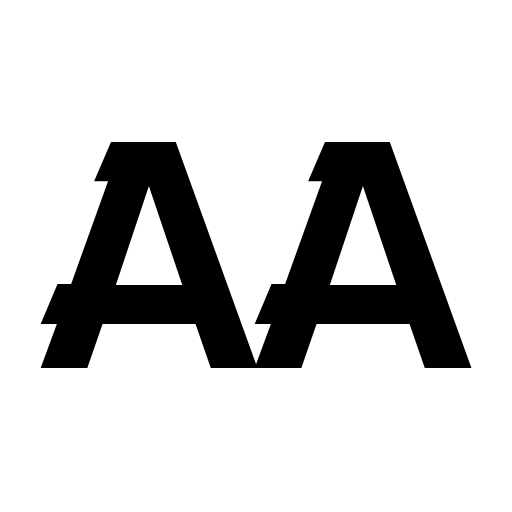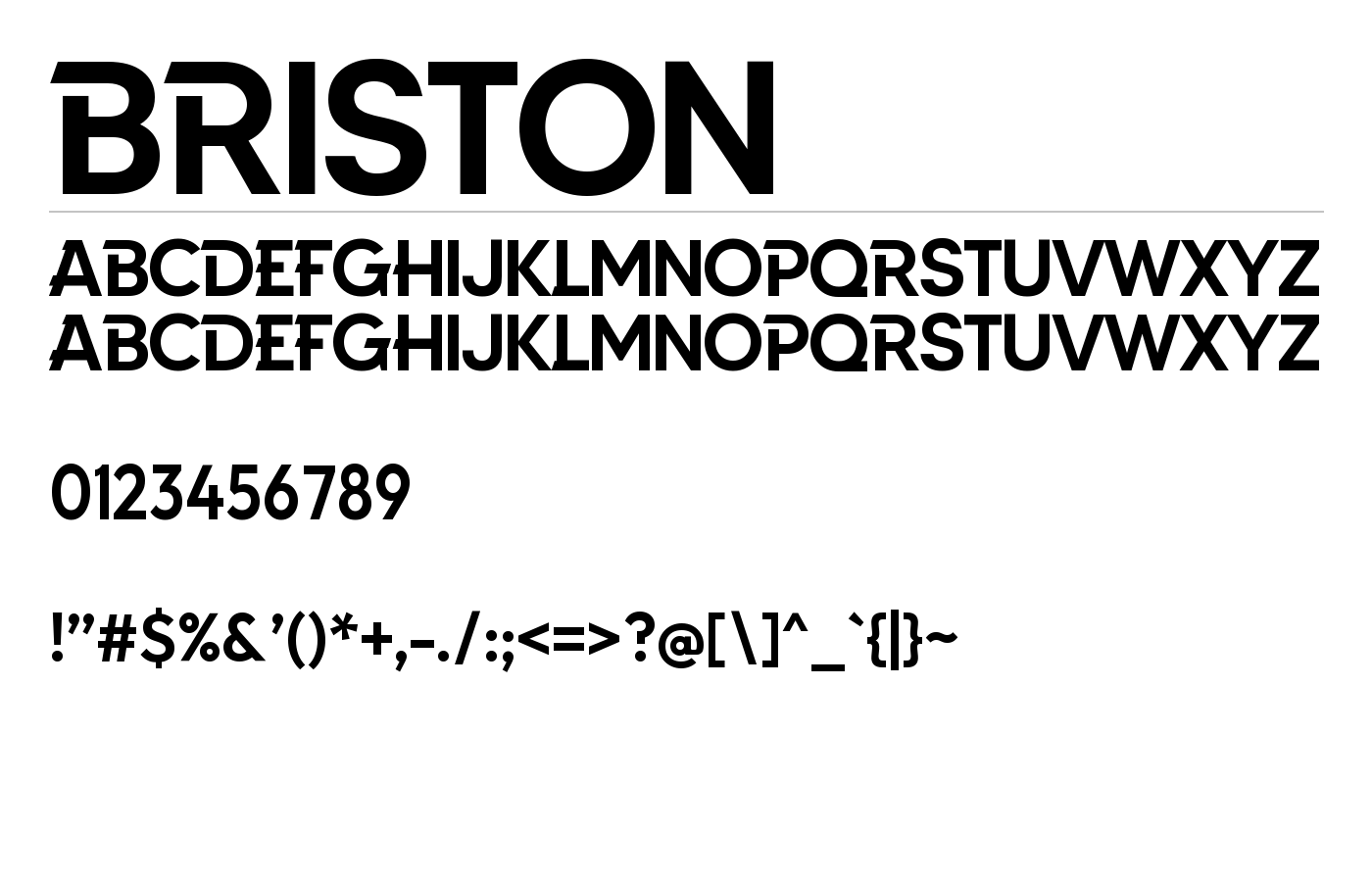
Briston is a bold, modern sans serif font with a strong geometric influence and distinctive angled cuts that add a dynamic, futuristic feel. Its clean lines, high contrast in stroke weight, and slightly condensed letterforms make it ideal for eye-catching headlines, logos, and branding that demand a contemporary and assertive aesthetic. This font works best in designs aiming for a sleek, innovative, and confident style.
Briston Font
About Briston Font
| Font family | Briston Font |
| Designer | Usman Albaehaqi |